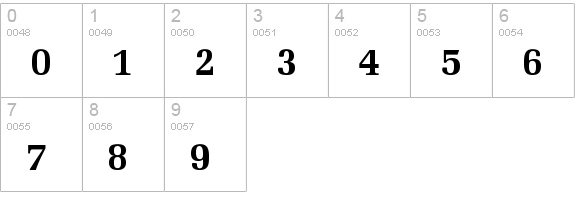
Melior Bold Font Details
Melior Bold is a strong, high-contrast variant in the Melior typeface family \xE2\x80\x94 well suited to headlines, attention-grabbing titles, and strong calls-to-action.
Melior Bold is a versatile and dynamic typeface that exudes confidence and elegance. With its strong, bold strokes and clean lines, this font is perfect for creating impactful headlines, titles, and branding materials. Its timeless style makes it suitable for a wide range of design projects, from advertising to editorial design. What sets Melior Bold apart is not just its striking appearance, but also the fact that it is available for free download at FontsMarket.com. This means that designers and creatives can easily access this high-quality font without any cost, making it a valuable addition to their font collection. Whether you're working on a professional project or simply looking to enhance your creative endeavors, Melior Bold is a must-have font that combines style, versatility, and accessibility.